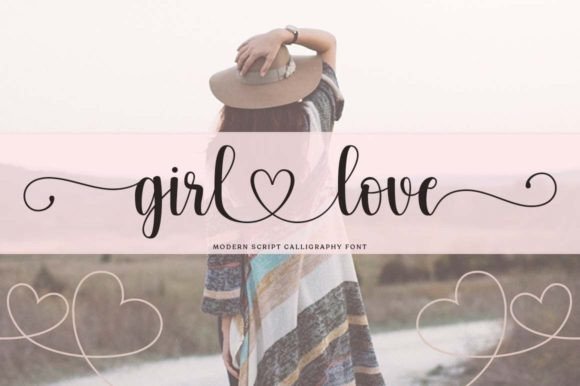
Immerse yourself in the world of Girl Love Font, a captivating script font that exudes elegance and charm. Designed by the talented Zane Studio, this font family offers a delightful collection of characters that will elevate your creative projects.
With its graceful curves and flowing lines, Girl Love adds a touch of sophistication to any design. Whether you're a graphic designer, photographer, or business owner, this font is a must-have for adding a touch of personality to your work.
Step into a world of endless possibilities with Girl Love Font. Craft stunning logos that leave a lasting impression, design eye-catching social media graphics that capture attention, or create unique invitations and cards that will be cherished forever. The versatility of this font knows no bounds, making it the perfect choice for a wide range of projects.
Unleash your creativity and make a statement with Girl Love Font. Its PUA encoding ensures effortless access to a treasure trove of glyphs and swashes, allowing you to add intricate details and flourishes to your designs.
Take your business to new heights with Girl Love Font. Create a website that reflects your brand's unique personality, design marketing materials that captivate your audience, or craft stunning logos that demand attention. This font will set your business apart and leave a lasting impression on your customers.
Don't settle for ordinary fonts. Embrace the beauty and elegance of Girl Love Font. Its enchanting charm will transform your creative projects and leave your audience spellbound.